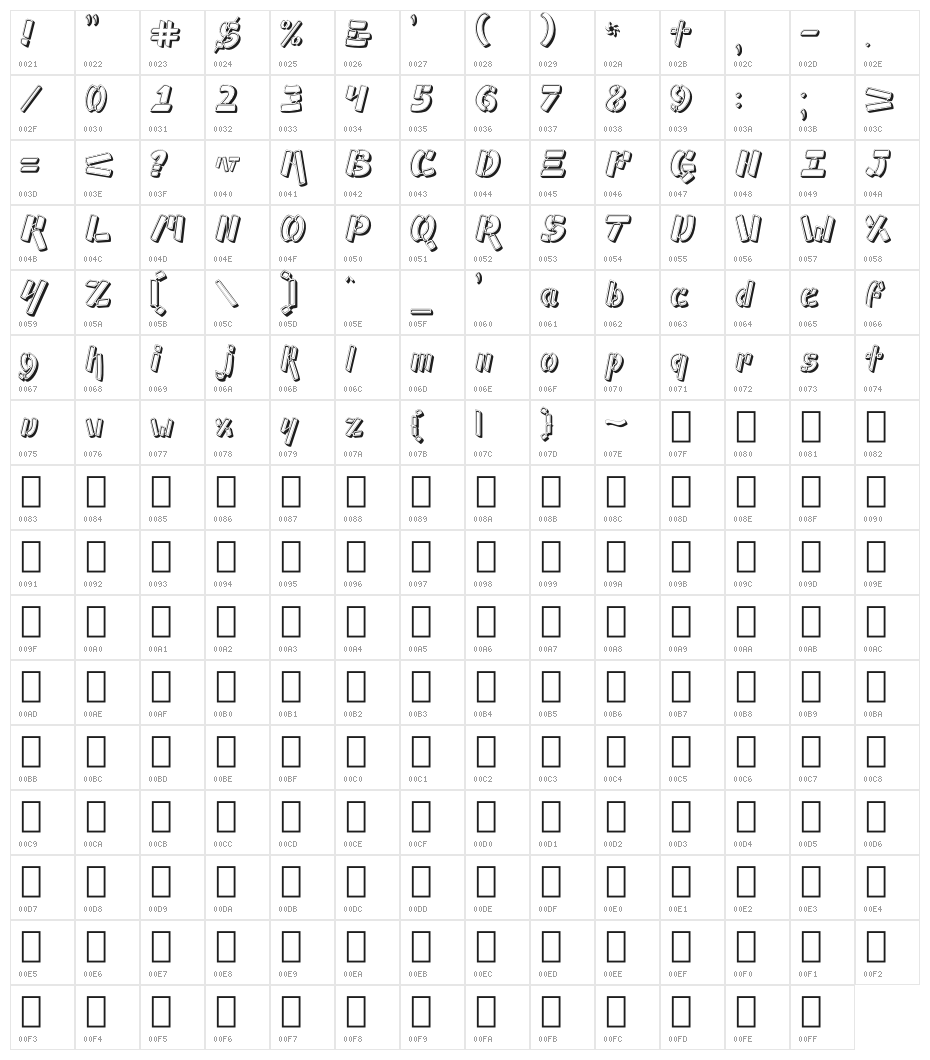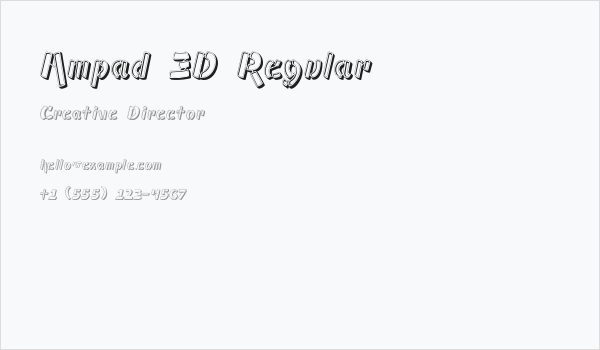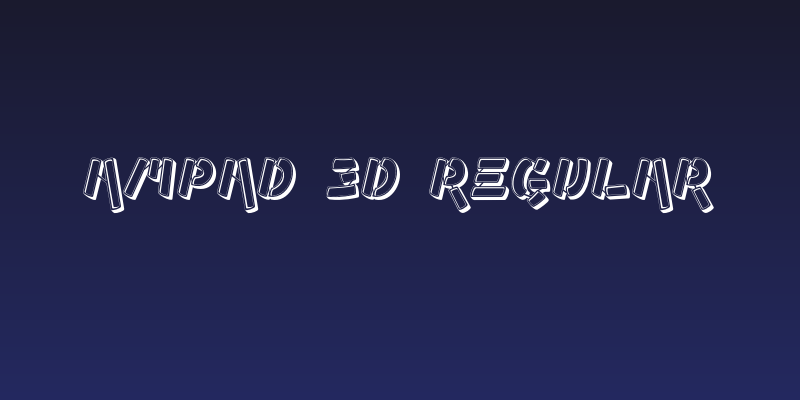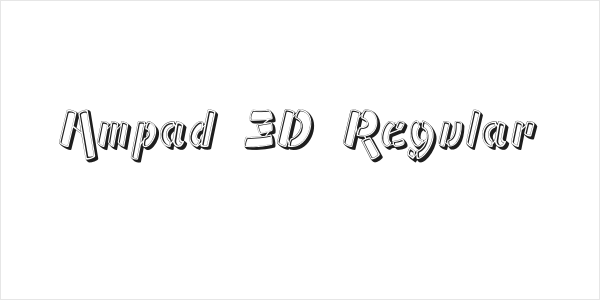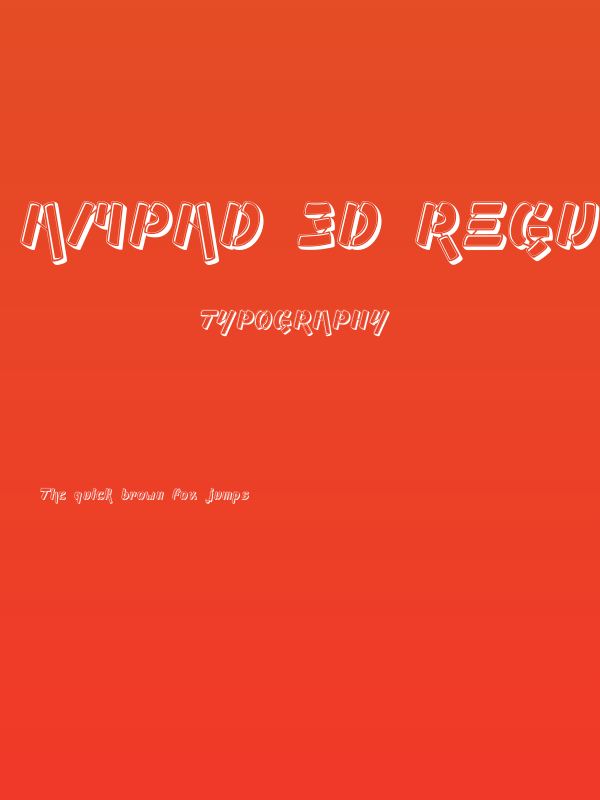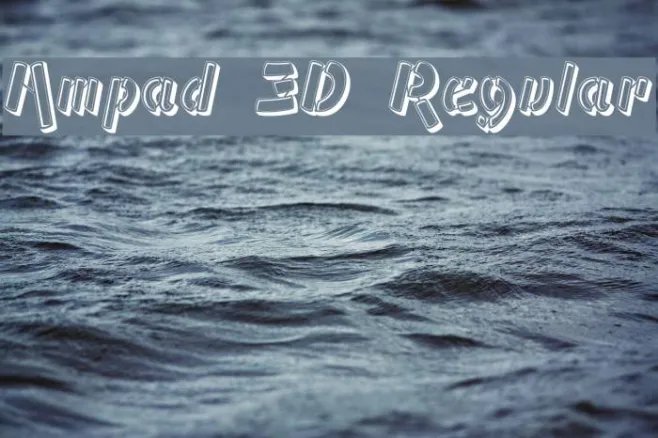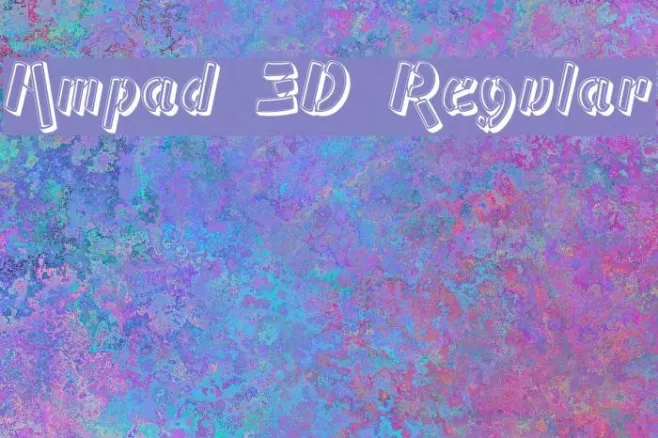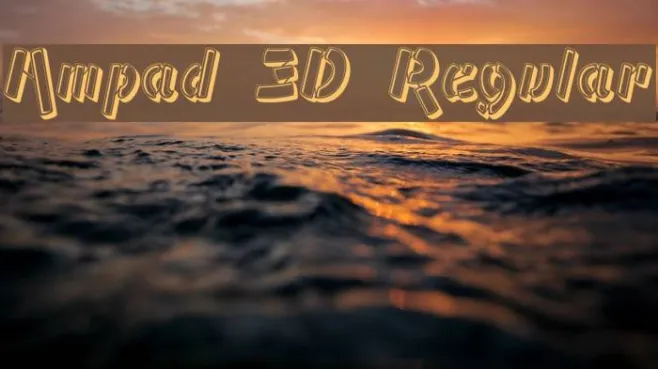
Ampad 3D Regular Font
Ampad 3D Regular Description
This font features a bold, three-dimensional design that gives each character a striking, shadowed appearance. The letters are outlined with a thick black line, creating a strong contrast against the white interior. The style is playful and dynamic, with a sense of depth that makes the characters pop off the page. The uppercase and lowercase letters maintain a consistent style, while the numbers and special characters are equally bold and expressive. This font is ideal for projects that require a fun, eye-catching display.
| Proposed Projects | Ideal for posters, headlines, logos, and any design needing a bold, playful touch. |